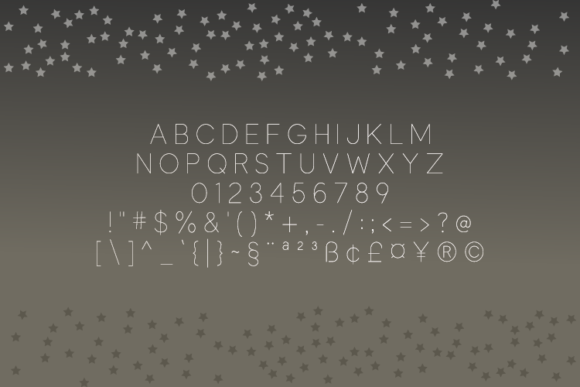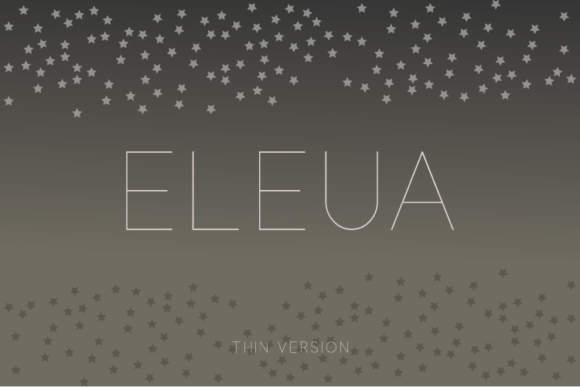
Introducing Eleua Thin Font: The Epitome of Simplicity and Elegance
In the realm of typography, a font can make or break the aesthetic appeal of a design. For designers and crafters seeking a typeface that exudes simplicity, elegance, and versatility, Eleua Thin Font emerges as an exceptional choice. Eleua, a sans serif font family, boasts a clean and casual feel, making it an ideal selection for both formal and non-formal design projects.
The Characteristics of Eleua Font
Eleua’s design is characterized by its neat and beautiful arrangement of letters, which lends itself to an undeniably clean feel. This simplicity is the hallmark of the font, allowing it to adapt seamlessly across various design contexts. Whether you’re working on a formal business project or a more relaxed, creative endeavor, Eleua’s unassuming elegance ensures it will enhance your design without overpowering it.
Versatility Across 10 Weights
One of the standout features of the Eleua font family is its comprehensive range of 10 weights. This variety allows designers to select the perfect weight to match the needs of their specific design project. From lighter weights ideal for body text and captions, to heavier weights that make a bold statement in headings and titles, Eleua offers the flexibility to ensure typographic consistency and hierarchy in any design.
Applications of Eleua Thin Font
The applications of Eleua Thin Font are vast and varied. In digital design, its clean lines and simple shapes make it highly legible on screens of all sizes, from mobile devices to large monitors. This legibility, combined with its aesthetic appeal, makes Eleua an excellent choice for website design, mobile app interfaces, and digital marketing materials.
In print design, Eleua’s elegance shines through in business cards, brochures, posters, and any project where a clear, professional look is desired. Its versatility also extends to craft projects, such as handlettering, journaling, and scrapbooking, where its simple yet charming appearance can add a touch of sophistication.
Why Choose Eleua Thin Font?
There are several reasons why designers and crafters might choose Eleua Thin Font for their projects:
• Simplicity and Elegance: Eleua’s clean and simple design makes it suitable for a wide range of projects, from minimalist designs to more complex compositions.
• Versatility: With 10 weights to choose from, Eleua can be used for both headline and body text, ensuring consistency across your design.
• Legibility: The font’s clear and uncluttered design ensures high legibility, making it easy to read in various contexts.
Eleua Thin Font stands out in the world of typography for its simplicity, elegance, and versatility. Whether you’re a designer working on a professional project or a crafter looking for the perfect font for your handmade creations, Eleua offers a range of benefits that can elevate your work. With its clean feel, comprehensive range of weights, and wide applicability, Eleua Thin Font is an excellent addition to any design toolkit.
By choosing Eleua, you’re not just selecting a font; you’re embracing a design philosophy that values clarity, simplicity, and aesthetic appeal. Whether your project demands a formal tone or a more casual vibe, Eleua Thin Font is poised to become your go-to typeface for achieving typographic excellence.